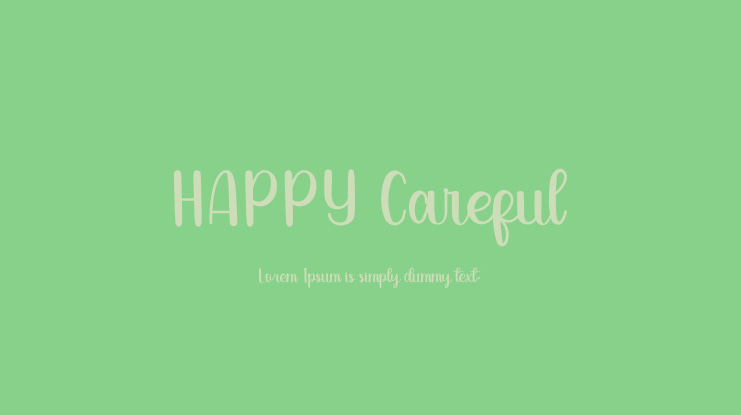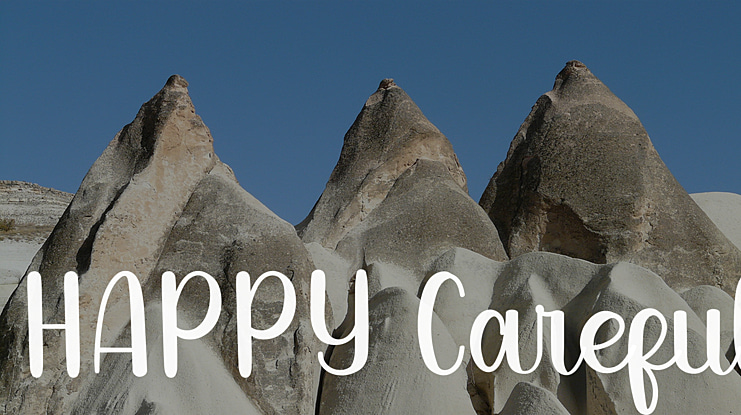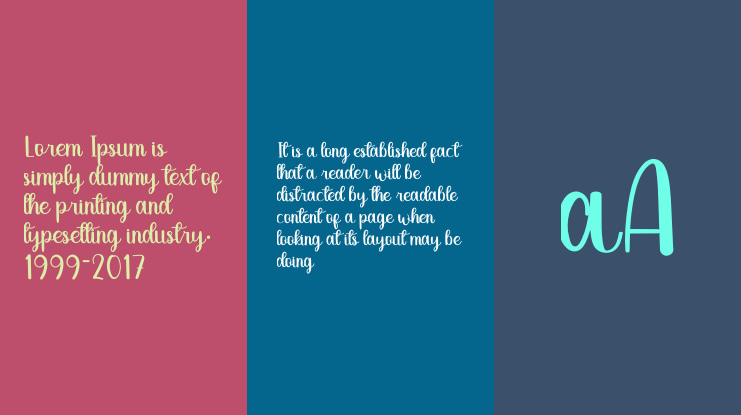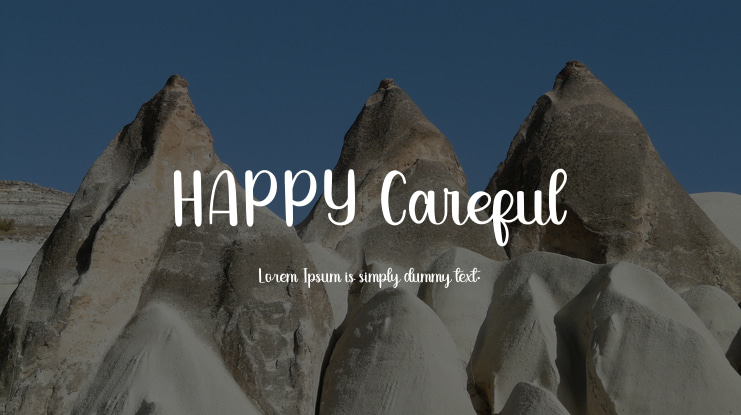
HAPPY Careful Font Family
This is a relaxed and beautiful paint brush handwritten font. It can be used for various purposes such as logos, wedding invitations, headings, t-shirts, letterhead, signage, labels, news, posters, badges and so much more.